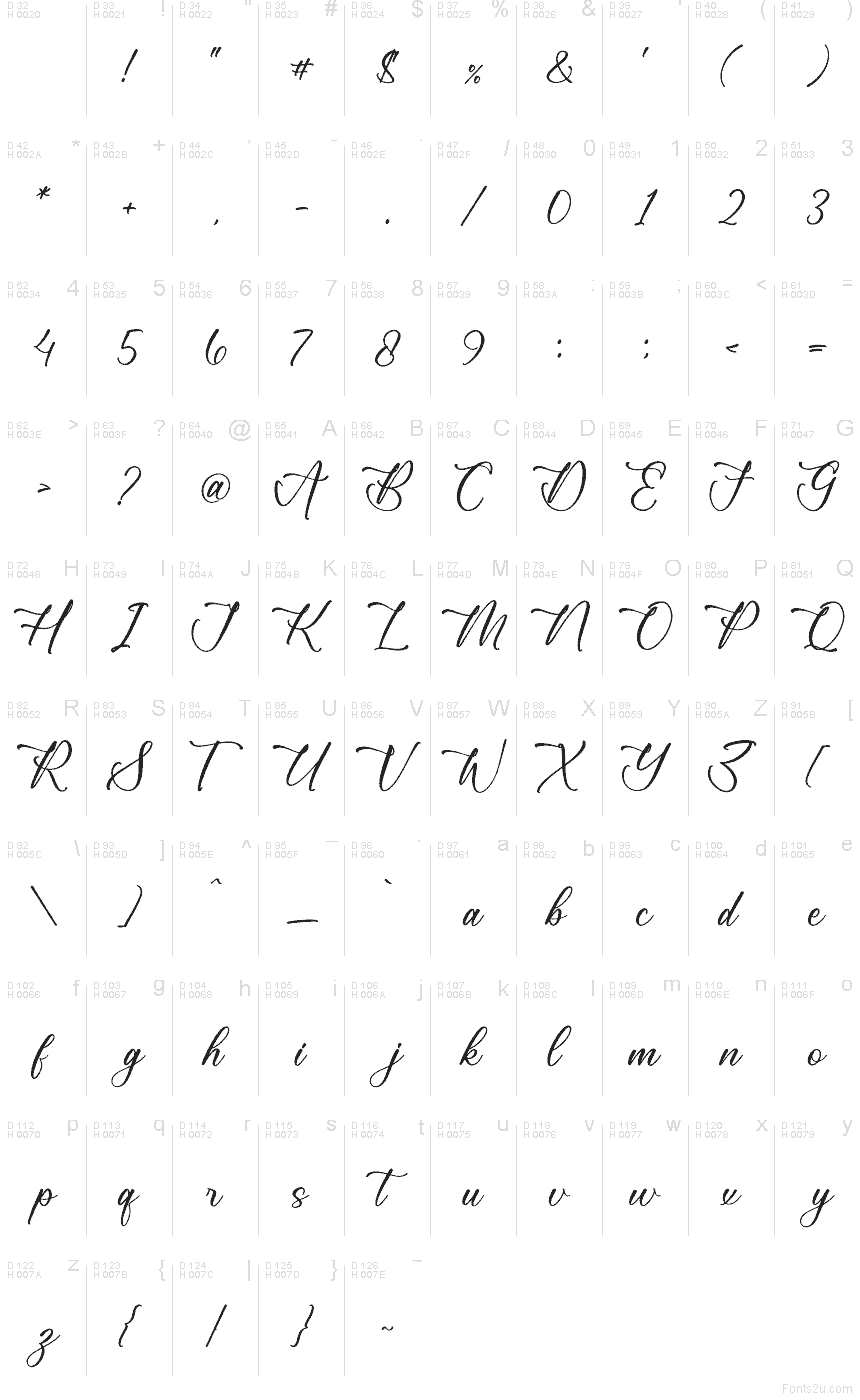
Gattenburg Mikalia
Gattenburg Mikalia font by Storytype Studio is a free calligraphy typeface that writes like a carefully practiced signature. Its flowing loops, long sweeping exits, and gently tilted rhythm give every word a sense of motion, like wet ink gliding across smooth paper. The strokes feel refined rather than fussy, with enough air between letters to keep even longer names or phrases readable at a glance.
Using Gattenburg Mikalia, romantic projects instantly gain a handwritten, keepsake quality—wedding invitations, engagement announcements, vow books, logos for beauty brands, boutique packaging, and elegant social media quotes all shine. This free font works beautifully as a large headline script paired with a simple sans serif in smaller text. Keep it roomy, with generous spacing and margins, so its delicate curves have space to breathe.